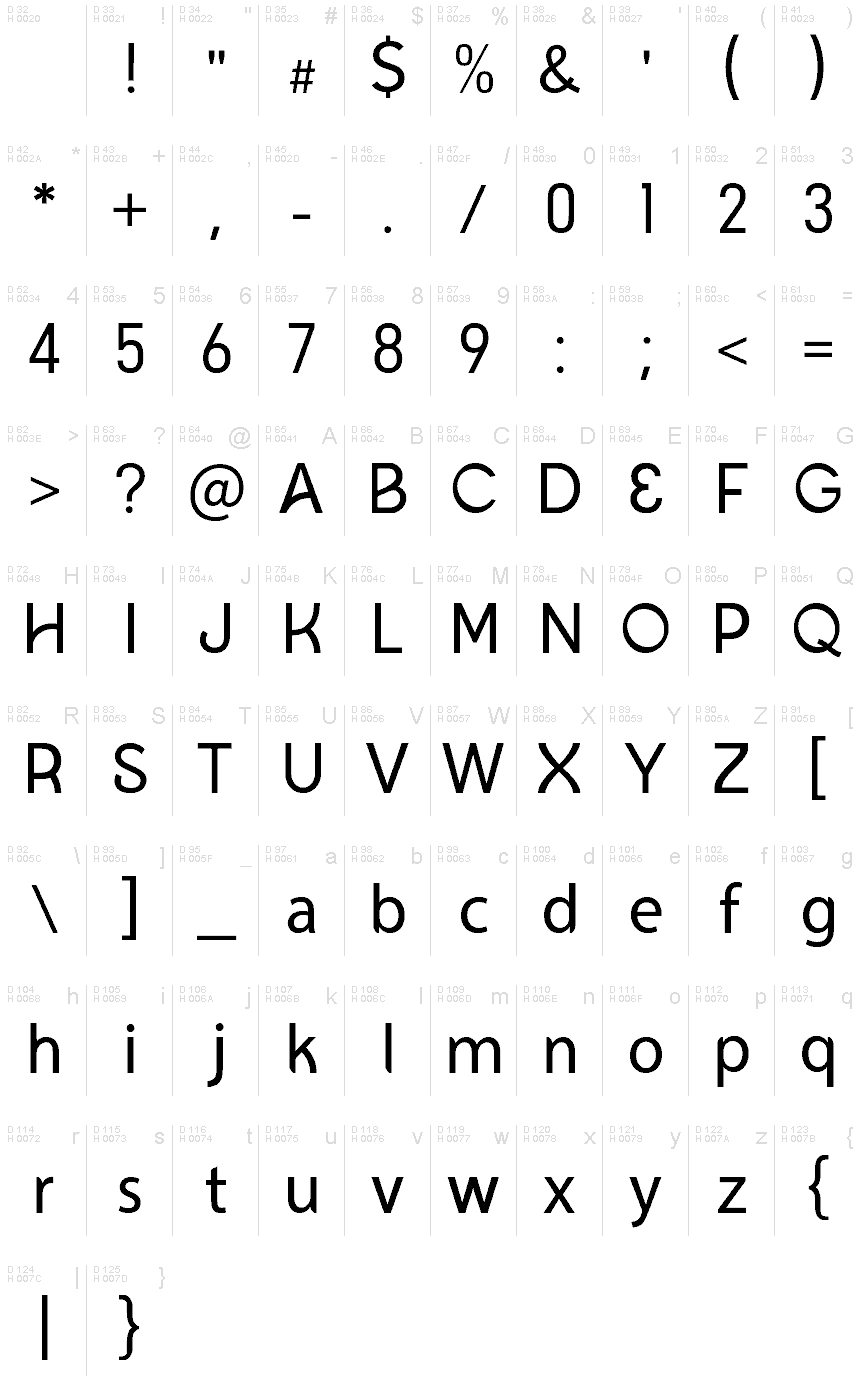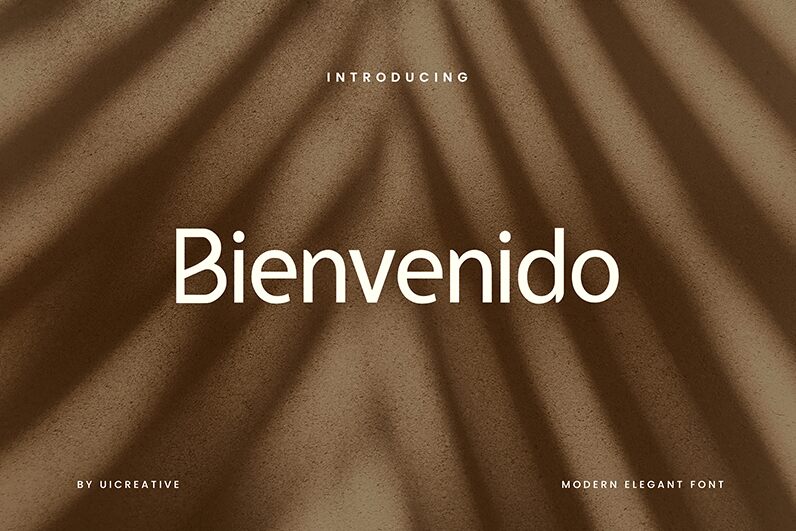
Bienvenido Regular
Bienvenido font is a modern sans-serif typeface created by UI Creative. This free font combines clean lines with professional and minimalistic qualities, and its approachable style makes it suitable for official purposes. It has a regular weight that allows an easy experience for designers, whether it’s utilized on print designs or digital projects.
Bienvenido is versatile when it comes to its usage which includes books and magazine covers, newspapers, headers and banners, blogs titles, advertising campaigns (flyers & brochures), packaging designs (labels), business cards designs, apps typography (phone interface fonts), websites typography (page fonts), posters typography, presentations slides typography.